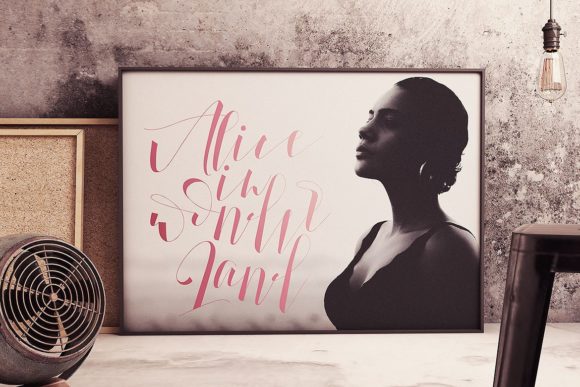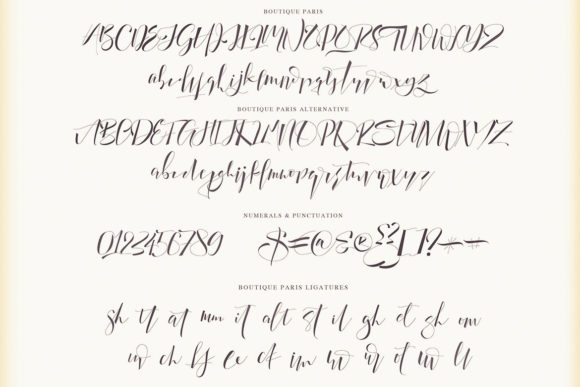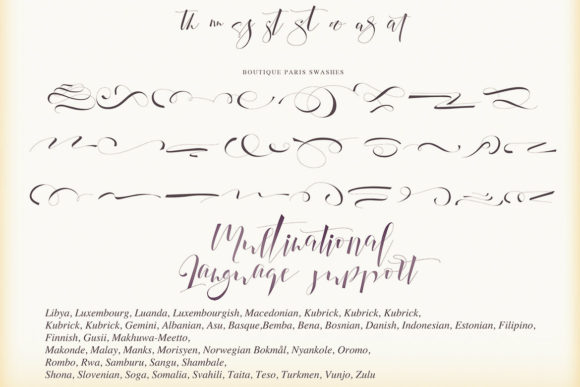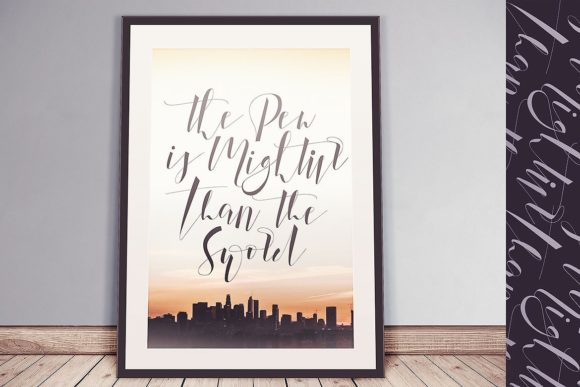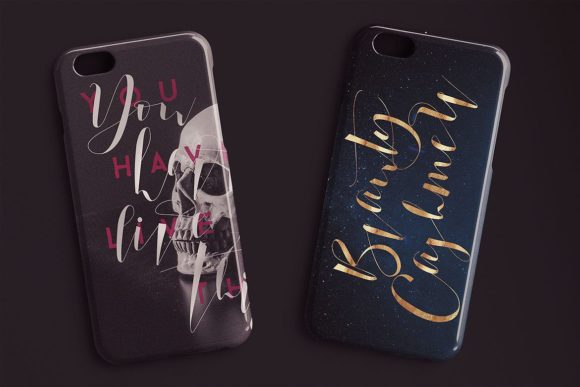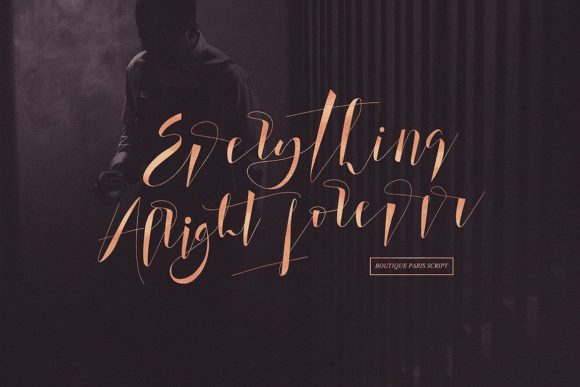
The Perfect Blend of Elegance and Edge
Have you ever been stuck in a creative rut, unable to find the perfect font to elevate your design? You’re not alone. We’ve all been there – staring at a blank canvas, searching for that elusive spark that will bring our vision to life. But what if I told you that the key to unlocking your next masterpiece lies in the intricate strokes and elegant flair of the Boutique Paris Font?
This modern calligraphy font is a game-changer for designers looking to add a touch of sophistication and whimsy to their projects. With its striking curves and subtle nuances, Boutique Paris Font is perfect for grunge and artistic projects that require a delicate balance of elegance and edge.
Boutique Paris Font Key Features
- Unique Characteristics: The Boutique Paris Font features a unique blend of French elegance and modern sophistication, making it perfect for luxury branding, high-end fashion, and premium products.
Boutique Paris Font Review
Overall, I’m impressed with the Boutique Paris Font. It’s a beautiful script font that exudes elegance and sophistication, perfect for designers who want to give their projects a touch of French flair. ✨
- The font is incredibly versatile and can be used for a wide range of applications, from logos to packaging to wedding invitations.
- The curves and flourishes are beautifully crafted, giving the font a high-end feel that’s hard to replicate.
- The font is also highly customizable, with a range of weights and styles to choose from.
However, there are a few limitations to be aware of. ⚠️
- The font may be too ornate for some projects, and can be overwhelming if not used sparingly.
- The font may not be suitable for digital use, as the curves and flourishes can be difficult to read on small screens.
Overall, I’d recommend the Boutique Paris Font to designers who are looking for a high-end, elegant script font. While it may have some limitations, the benefits far outweigh the drawbacks.
To get the most out of the Boutique Paris font, use it in contexts that require elegance and sophistication, such as wedding invitations, fashion designs, and luxury branding. Experiment with different font sizes, colors, and combinations to create unique and eye-catching designs.
The Boutique Paris font is commonly used in:
Fashion designs and branding
Luxury product packaging and labeling
High-end event invitations and promotional materials